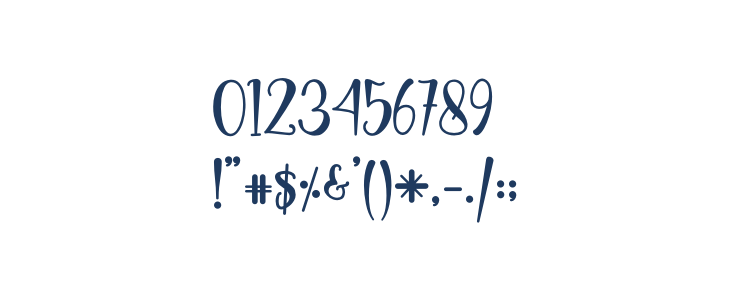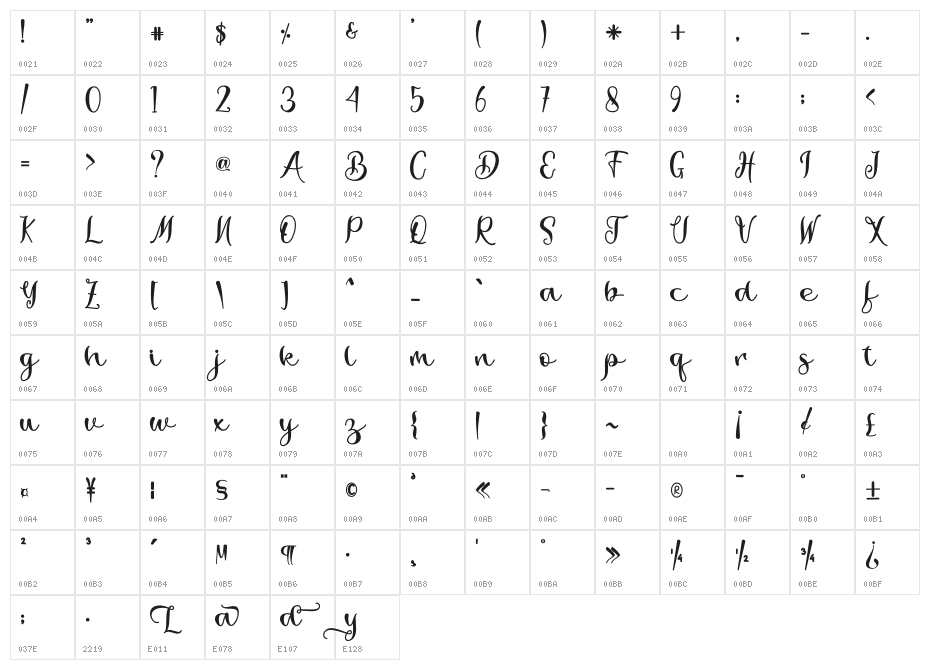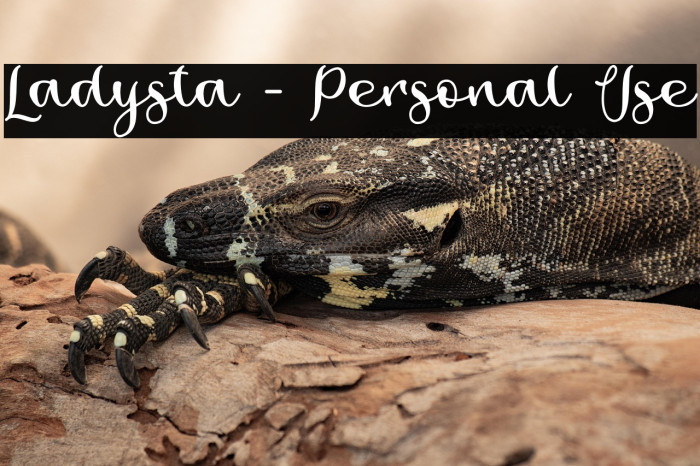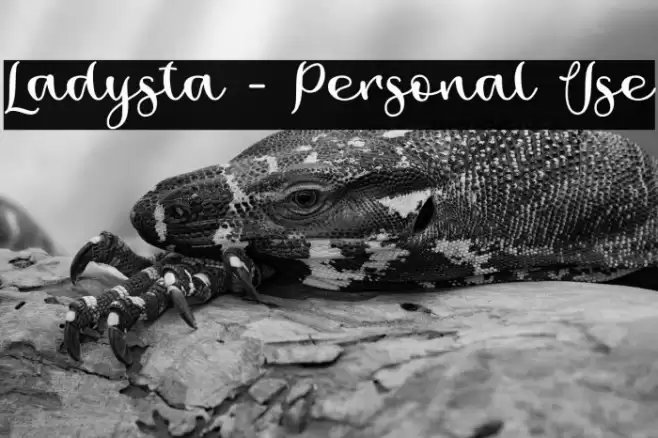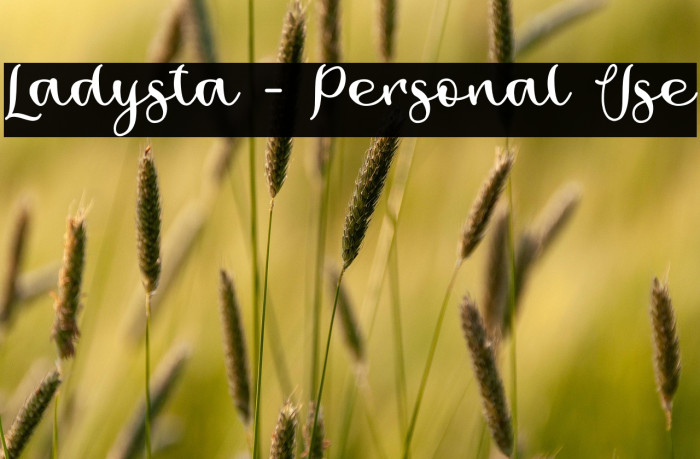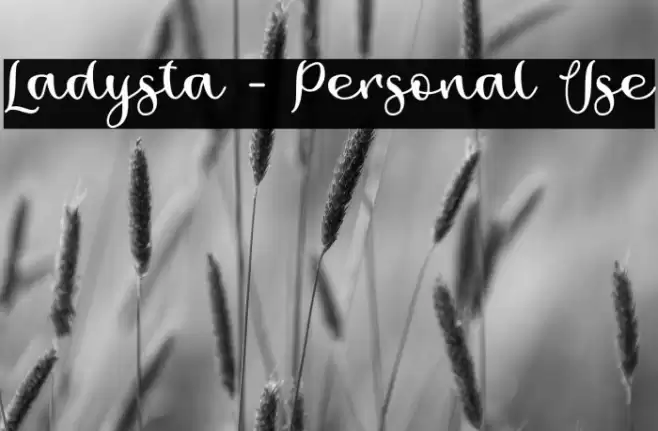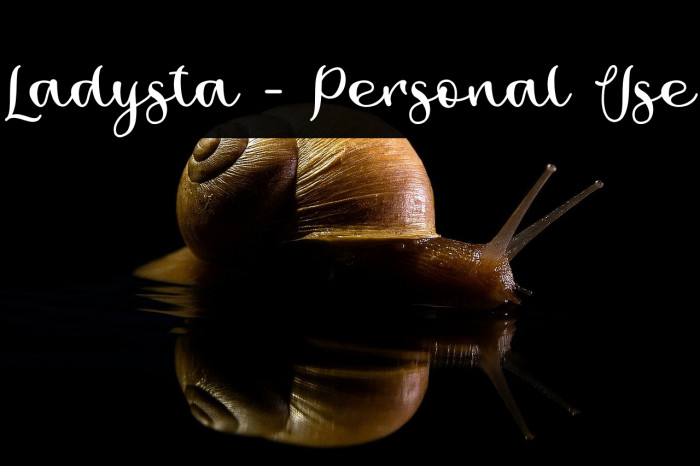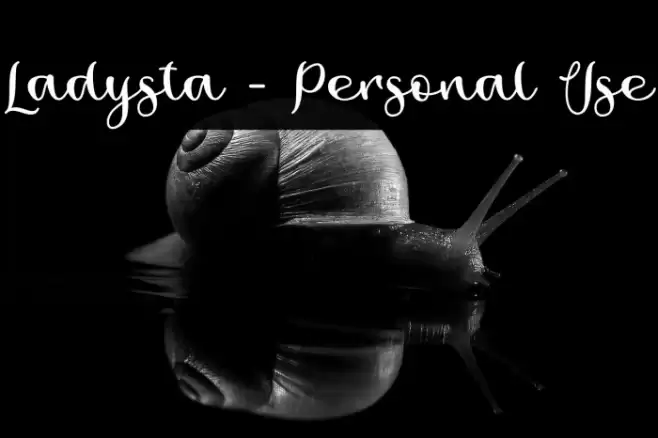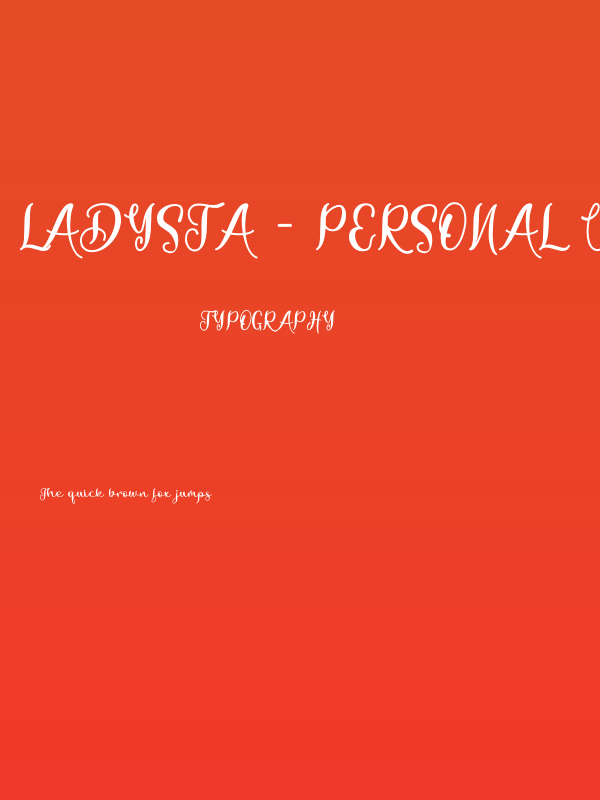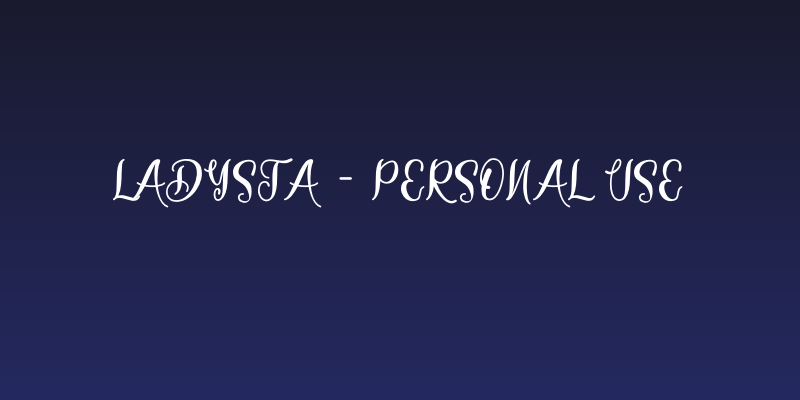
Ladysta - Personal Use Font
Ladysta - Personal Use Description
This font features a playful and elegant script style with a handwritten feel. The letters are characterized by smooth, flowing curves and a slight slant, giving it a dynamic and lively appearance. The uppercase letters are bold and prominent, while the lowercase letters maintain a consistent flow with a touch of whimsy. The numbers are well-integrated into the style, maintaining the same fluidity and charm. Special characters are creatively designed to match the overall aesthetic, making this font versatile for various creative projects.
Use CaseLogos, Invitations, Greeting Cards
Proposed ProjectsIdeal for wedding invitations, greeting cards, branding, and logo design.